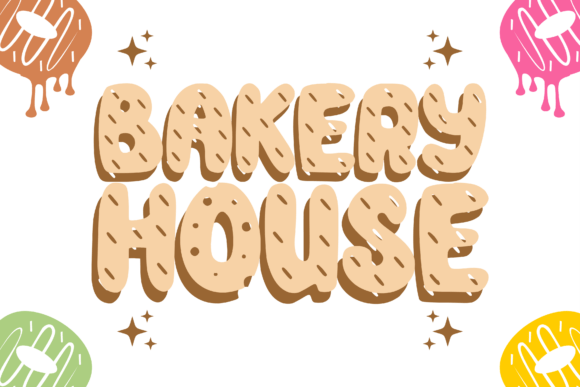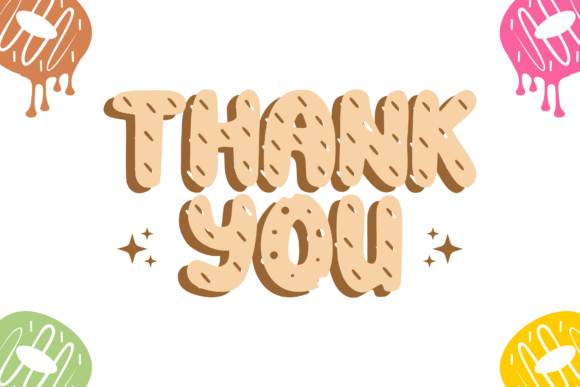
Welcome to the Irresistible World of Donuts Font
Imagine you’re working on a project, and you’re struggling to find the perfect font. Your client wants something unique, something that will make their brand stand out. You’re browsing through font libraries, but nothing seems quite right. That’s when you stumble upon Donuts Font – an avant-garde typeface inspired by the enticing allure of confectionery branding. In this article, we’ll dive into the world of Donuts Font, exploring its features, uses, and what makes it so special.
A Personal Encounter with Donuts Font
I recall working on a project for a local bakery, and they wanted a font that would reflect their brand’s personality – fun, playful, and appetizing. I tried several fonts, but none seemed to capture the essence of their brand. That’s when I discovered Donuts Font. Its unique blend of distinctiveness and adaptability made it the perfect fit for the project. The client loved it, and it added an extra spark of vitality to their branding campaigns.
An Honest Review of Donuts Font
- ✨ Unique and eye-catching design
- ✅ Highly adaptable for various design projects
- 💡 Supports OpenType features, glyphs, and stylistic alternates
- 🎉 Ideal for creating attention-grabbing posters, magazine layouts, and online designs
⚠️ While Donuts Font is incredibly versatile, it may not be the best choice for very formal or traditional designs. Its playful nature might not fit well with more conservative branding strategies.
🤔 Some users might find the font’s uniqueness a bit overwhelming, especially when used in large blocks of text.
The Designer Inspiration Behind Donuts Font
Donuts Font was inspired by the colorful and playful world of confectionery branding. Its designer, a creative and sweet-toothed individual, wanted to capture the essence of freshly baked goods and the joy they bring to people. The font’s unique design and adaptability make it perfect for a wide range of design projects, from posters and magazine layouts to online designs and stickers.
| What makes Donuts Font unique? | Donuts Font’s unique blend of distinctiveness and adaptability makes it stand out from other fonts. Its playful design and support for OpenType features, glyphs, and stylistic alternates make it perfect for creating eye-catching designs. |
| Is Donuts Font easy to read? | Donuts Font is designed to be highly legible, even at small font sizes. However, its playful nature might make it less suitable for very long blocks of text. |
In conclusion, Donuts Font is a versatile and eye-catching typeface that’s perfect for designers, crafters, and creative hobbyists. Its unique design, adaptability, and support for OpenType features make it an excellent choice for a wide range of design projects. Whether you’re creating posters, magazine layouts, or online designs, Donuts Font is sure to add an extra spark of vitality to your branding campaigns.